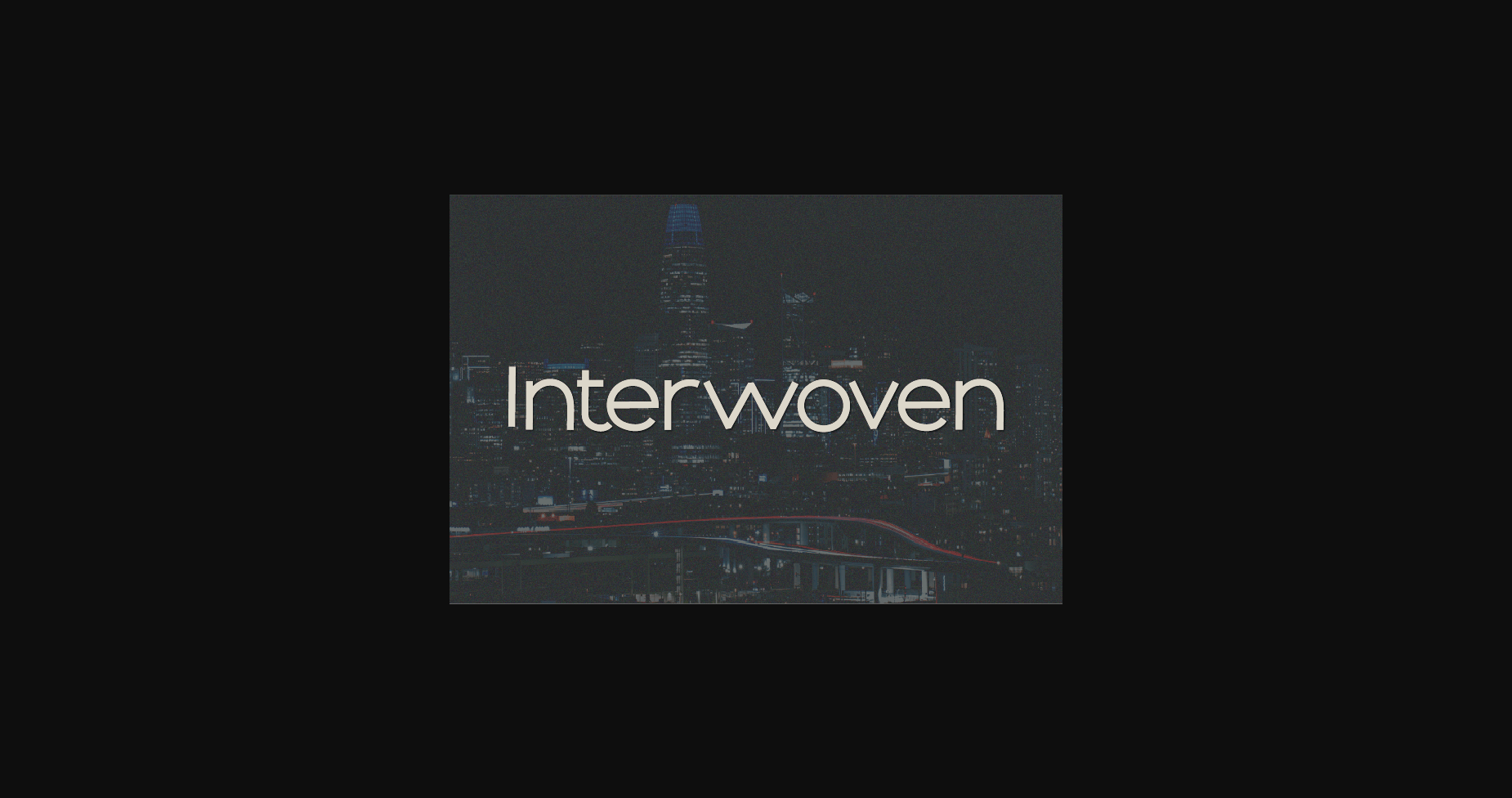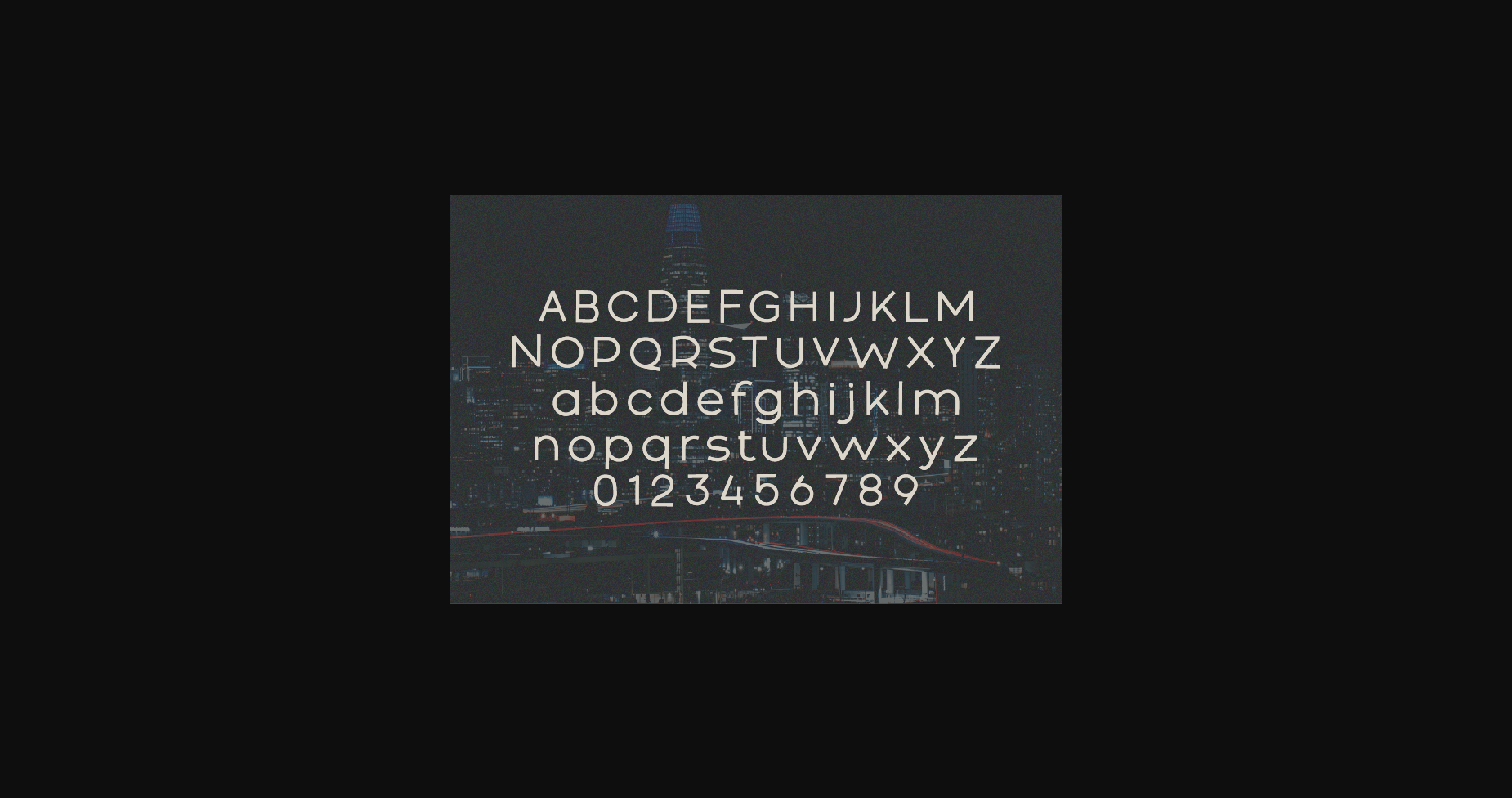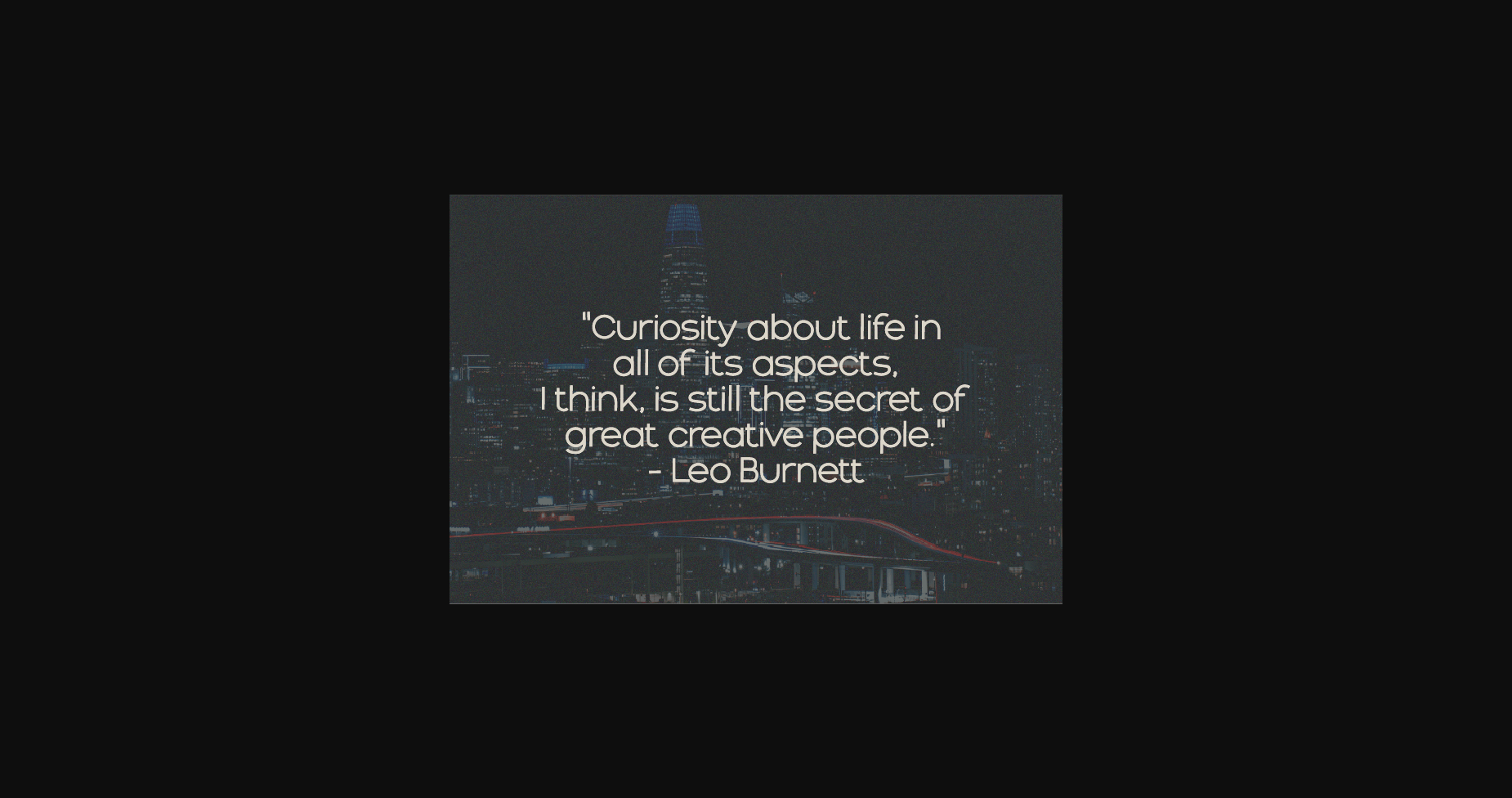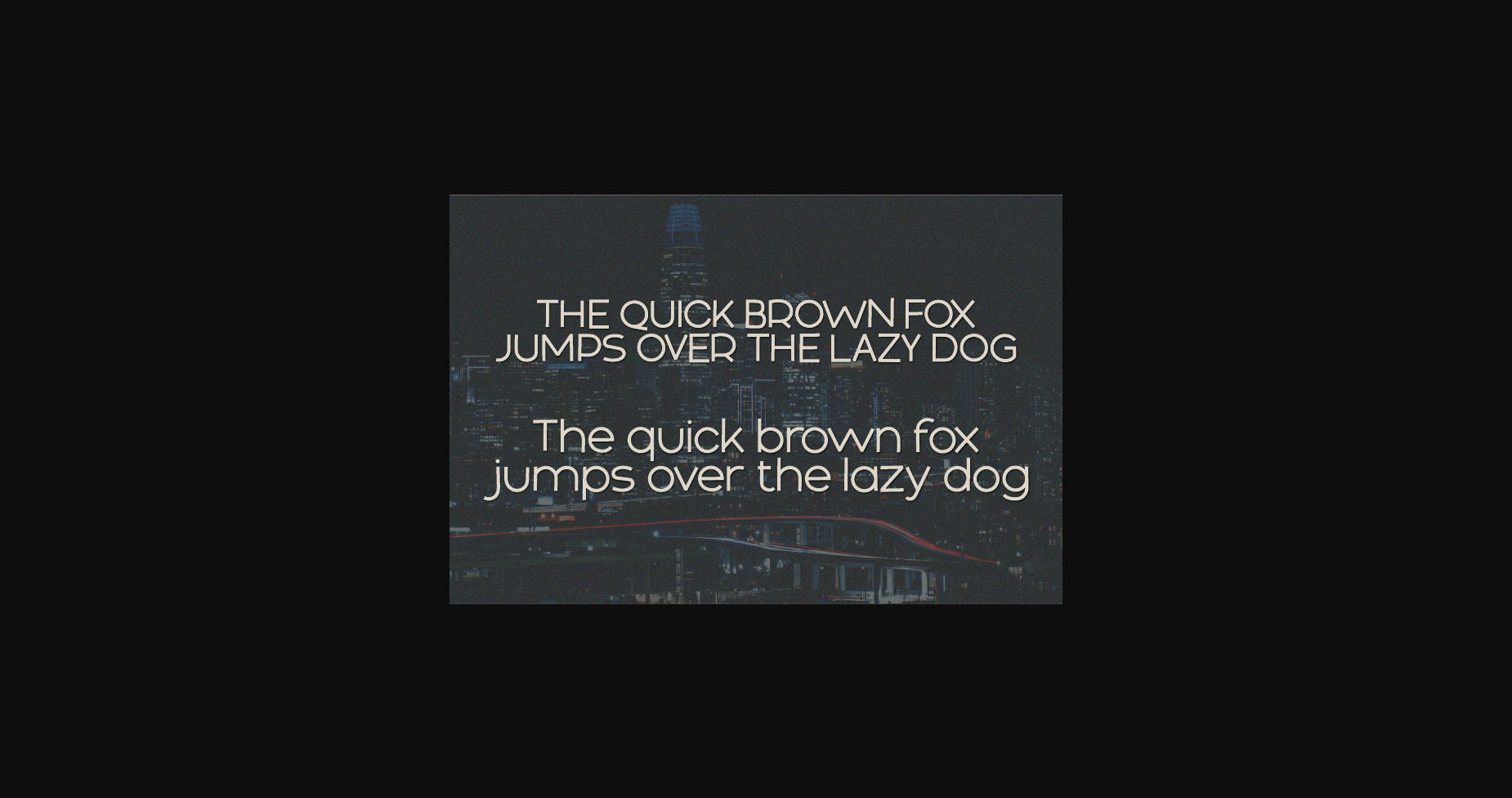
Interwoven Font
About Interwoven Font
Interwoven is a natural sans font made without changing a single node in each character’s indentation- this makes this font very interesting and unique. Perfect for quotes, notes, tees, and any product design.